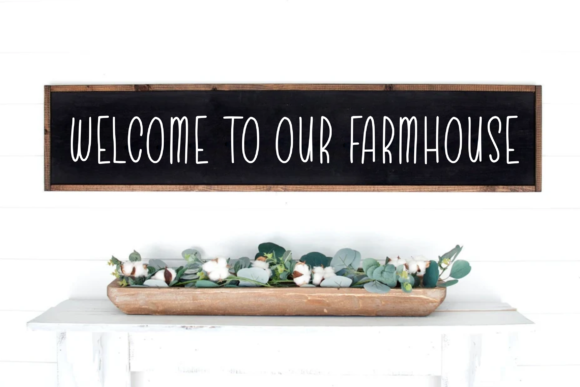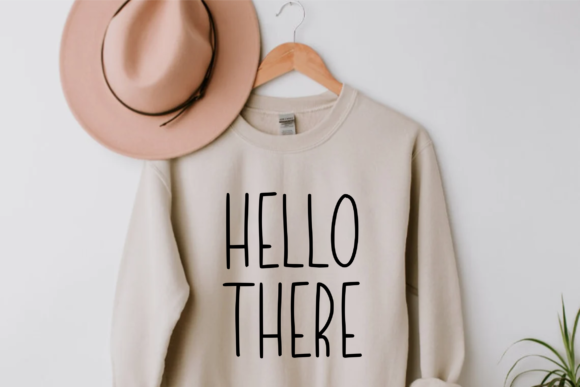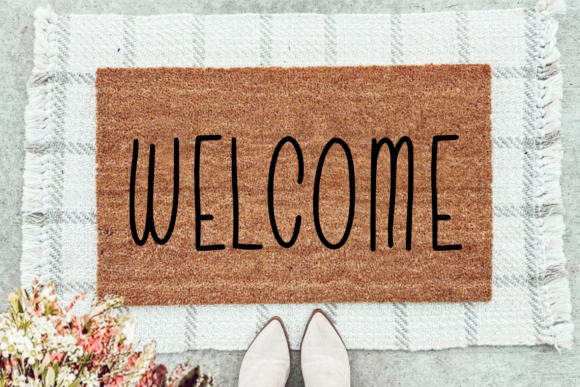
Introduction to Secret Caramel Font
Have you ever stumbled upon a beautiful, handwritten font that makes your design project pop? That’s exactly what happened to me when I discovered the Secret Caramel Font. Its unique, elegant style immediately caught my attention, and I knew I had to share it with fellow designers.
As a designer, you’re always on the lookout for high-quality design resources that can elevate your creative projects. The Secret Caramel Font is one such treasure, perfect for product packaging, branding projects, magazines, social media, weddings, or any other project where a touch of whimsy is needed. Its versatility and beauty make it a valuable addition to any design library.
Key Features of Secret Caramel Font
- High-quality design resource for creative projects: Secret Caramel Font offers a unique and elegant style perfect for various applications.
- Unique characteristics: This font features a unique blend of modern and vintage elements, making it perfect for designers looking for a distinctive and eye-catching design resource.
- Perfect for creative projects: Secret Caramel Font is ideal for use in creative projects such as logos, branding, typography, and more, thanks to its high-quality design and versatility.
Honest Review: Secret Caramel Font
As a designer, I’m always on the lookout for high-quality design resources that can elevate my creative projects. Recently, I came across the Secret Caramel Font, and I must say, it’s been a game-changer.
- ✨ The font’s unique design is perfect for adding a touch of sophistication to any project.
- ⚠️ The font may not be suitable for all types of projects, especially those that require a bold or loud typography.
- ⚠️ Some users may find the font’s design too intricate or busy.
Overall, I’m thoroughly impressed with the Secret Caramel Font. Its unique design and high-quality features make it an excellent addition to any designer’s toolkit. While it may not be suitable for every project, it’s definitely worth considering for your next creative venture.
Tips and Use Cases
The Secret Caramel Font is ideal for use in wedding invitations, birthday cards, and other creative projects that require a touch of elegance and sophistication. You can also use the font to create a consistent brand identity for your business. Remember to use the font on a transparent background to achieve a seamless design effect.